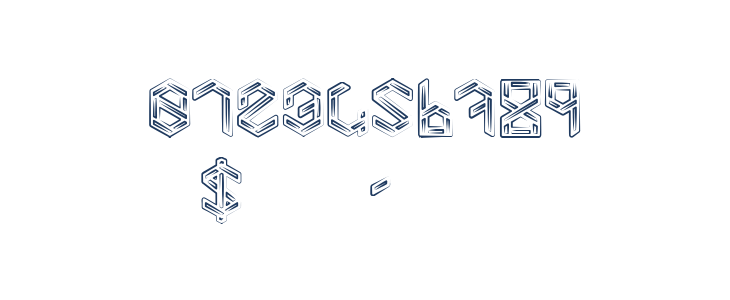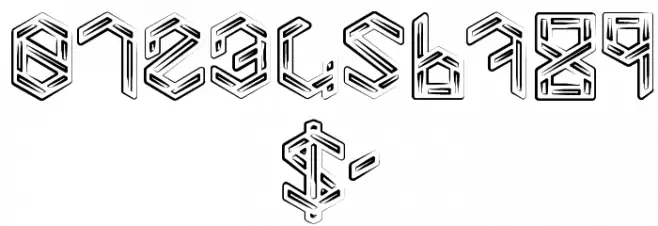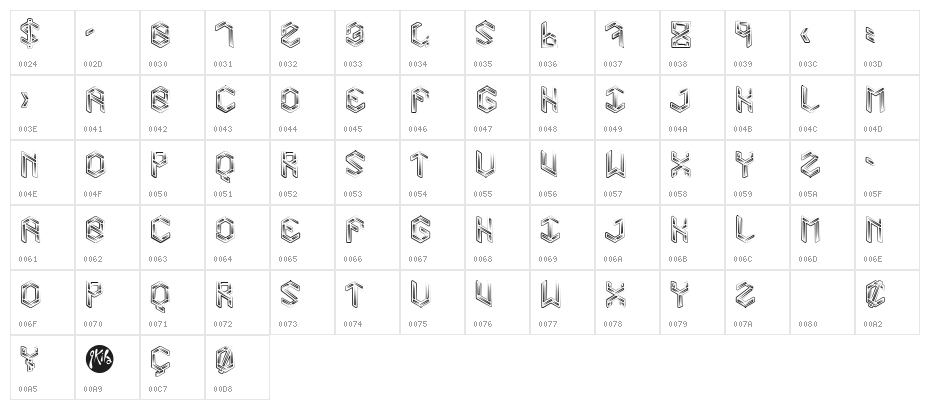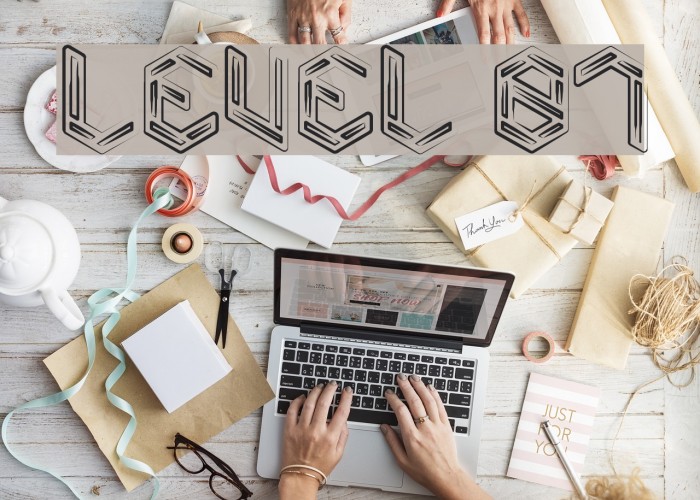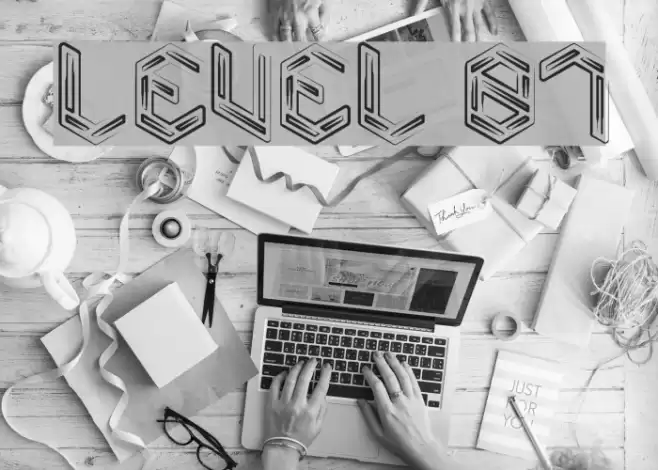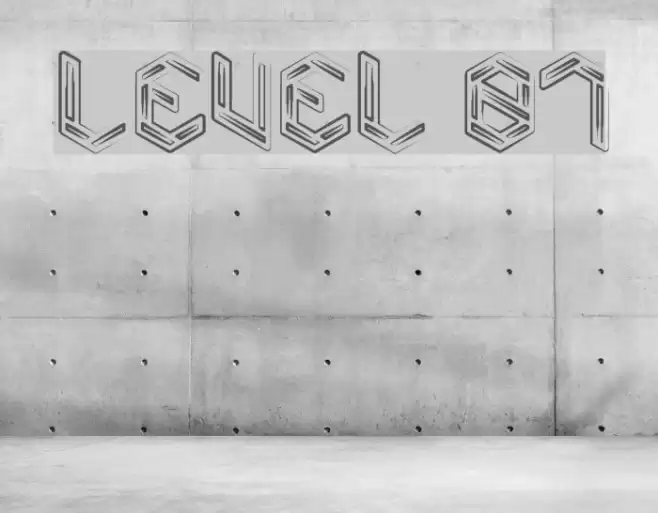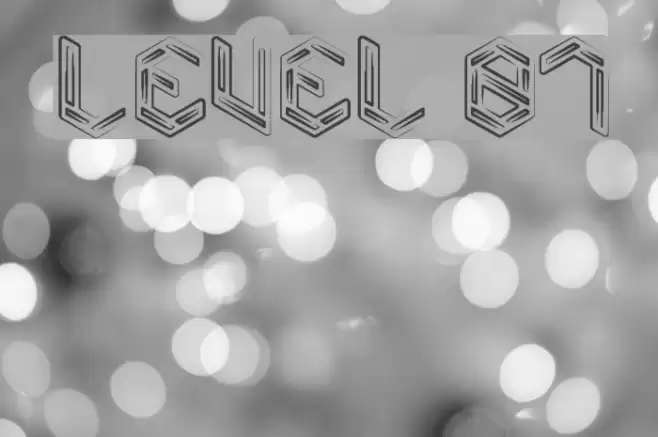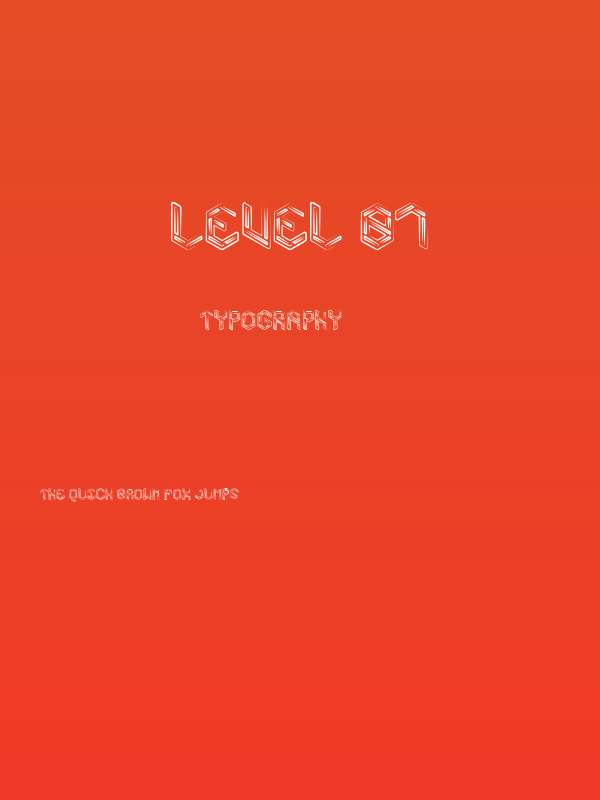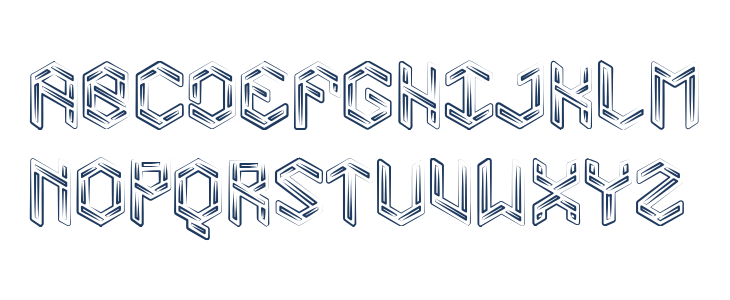
Level 01 Font
Level 01 Description
This font features a bold, geometric design with a three-dimensional effect, giving each character a sense of depth and structure. The letters are constructed with clean, angular lines and a consistent stroke width, creating a modern and futuristic appearance. The use of negative space within the characters adds to the visual interest, making it suitable for eye-catching designs. The font's unique style is both decorative and functional, offering versatility for various creative projects.
| Proposed Projects | Ideal for branding, posters, video game graphics, and sci-fi themed projects. |